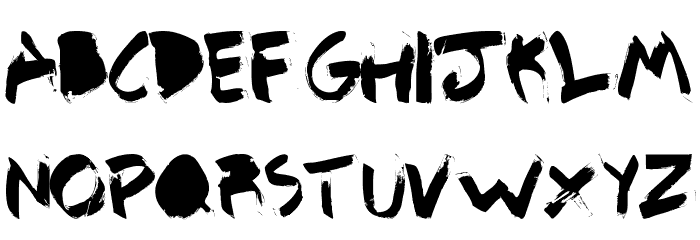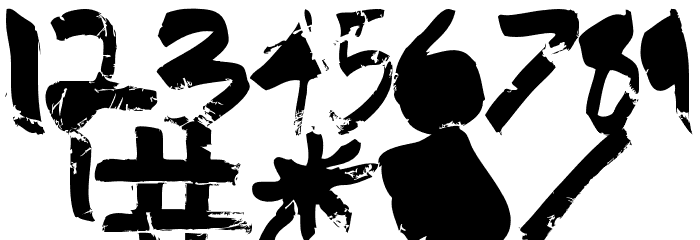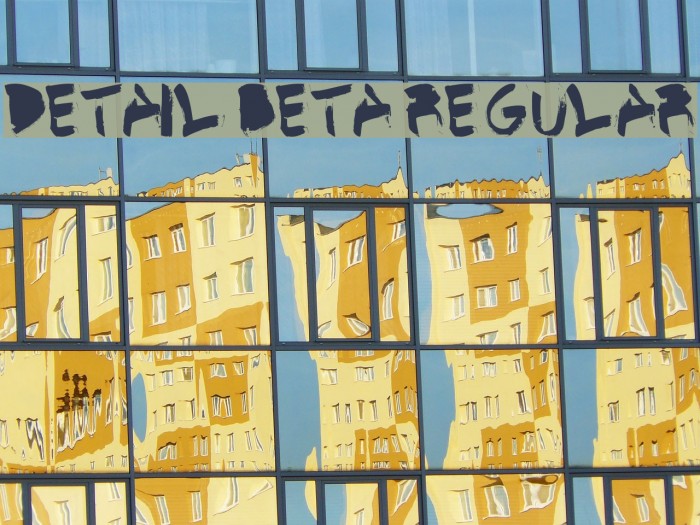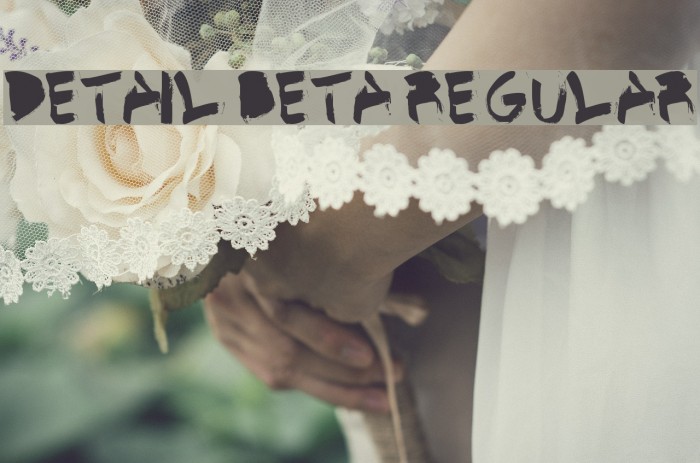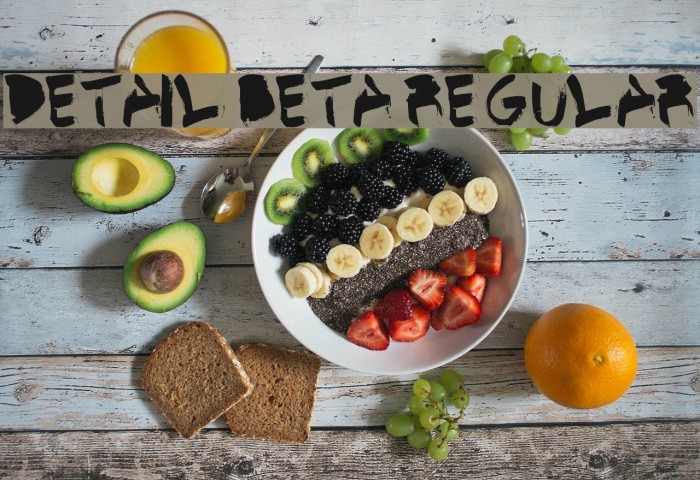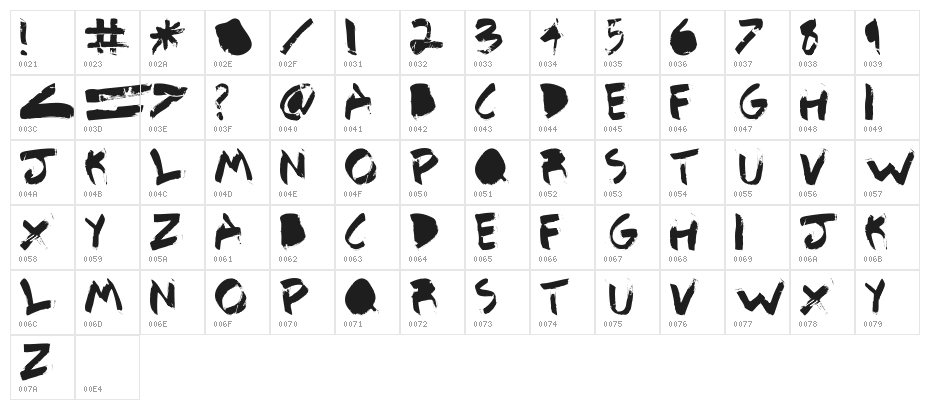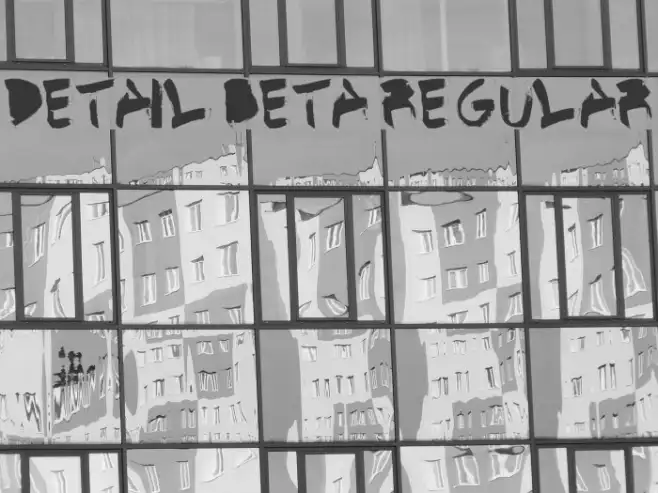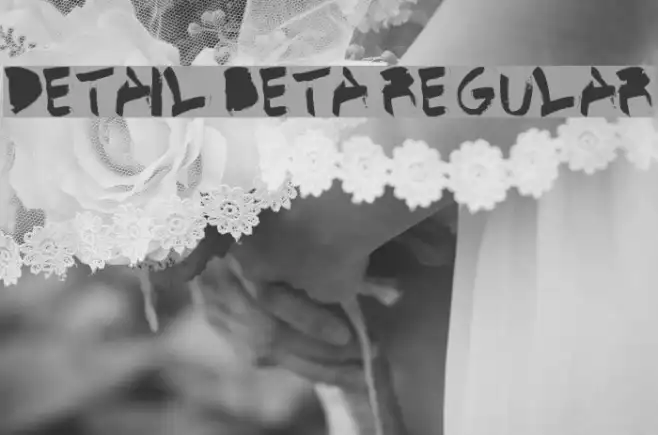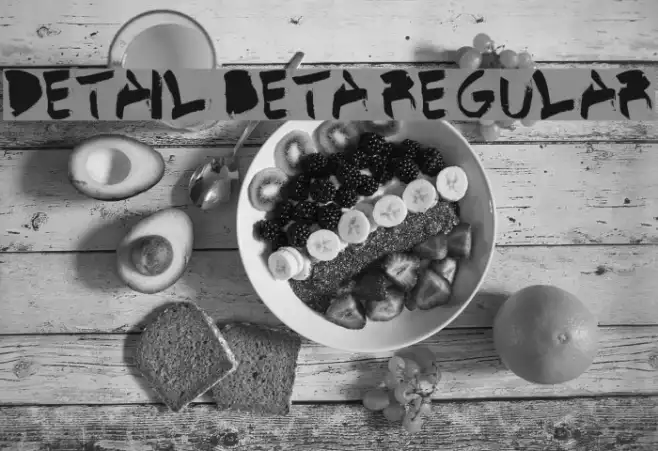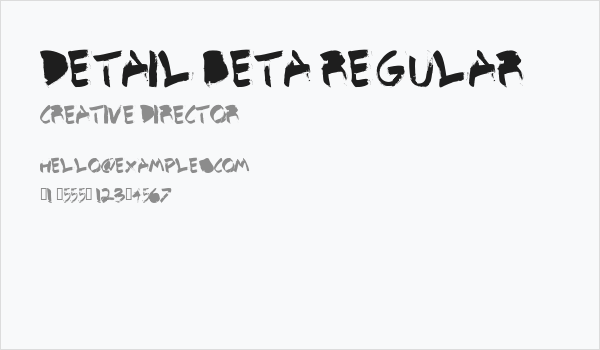
Detail BETA Regular Font
This font exhibits a bold, expressive style with a brush-like texture that gives it a dynamic and energetic appearance. The strokes are irregular and have a hand-painted quality, which adds a sense of movement and spontaneity. The characters are slightly rough around the edges, enhancing the artistic and informal feel. The uppercase and lowercase letters maintain a consistent style, with a noticeable emphasis on boldness and thickness. The numbers and special characters follow the same aesthetic, ensuring uniformity across all glyphs. This font is ideal for projects that require a strong visual impact and a creative touch.
A bold, brush-style font with an expressive and dynamic appearance.
- Proposed Projects: Ideal for posters, album covers, artistic branding, and creative advertising campaigns.
- Overall Style: Modern, Artistic